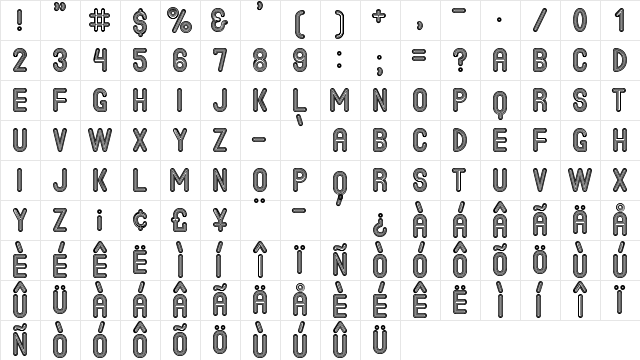
The Jack Bronw St Regular
| Designer | This font is an original work of southype dot com |
Design Context for The Jack Bronw St Typeface
The Jack Bronw St offers clean, dependable letterforms without strong stylistic allegiance, making it a practical choice for designers who need flexibility.